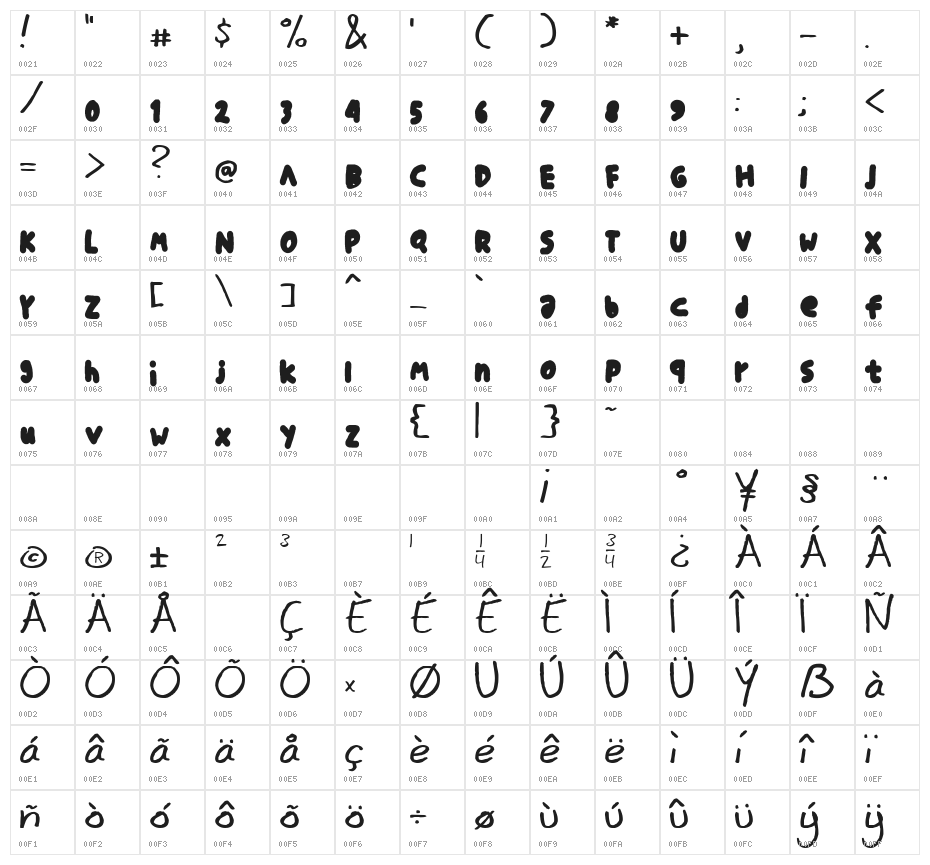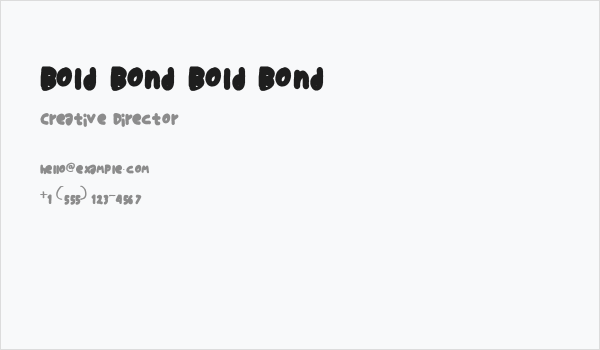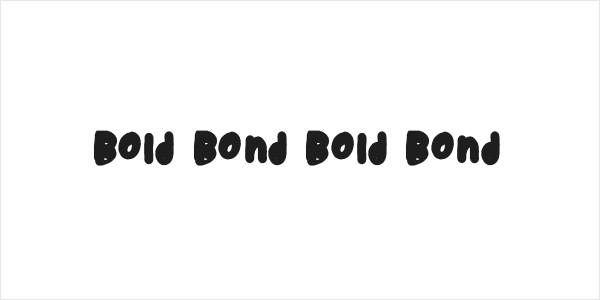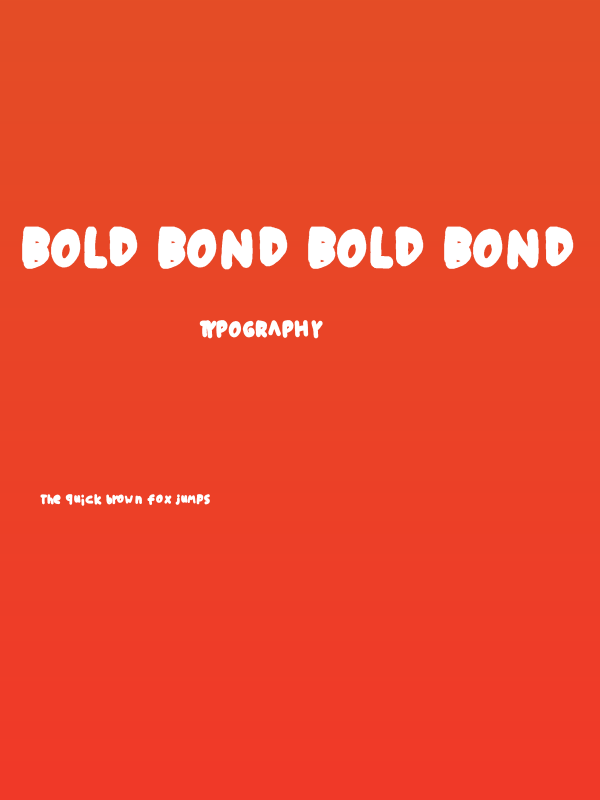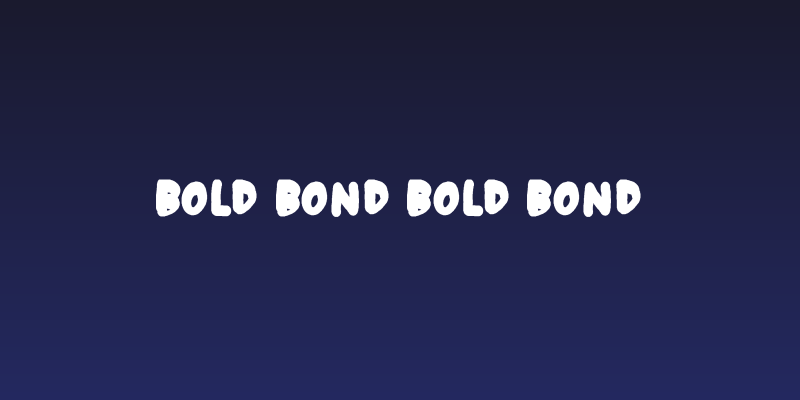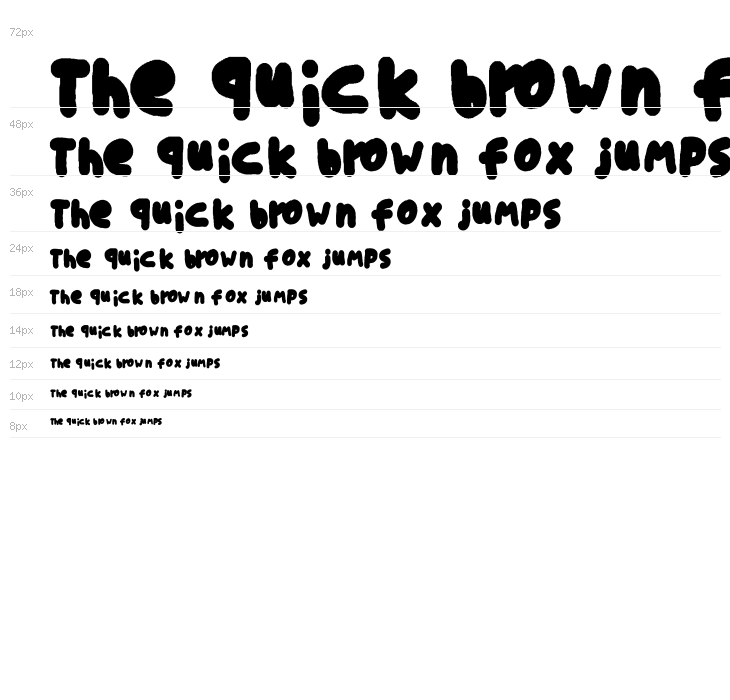
Bold Bond Font
Bold Bond Description
This font features a bold and playful style with rounded, thick strokes that give it a friendly and approachable appearance. The characters are slightly irregular, adding a hand-drawn feel that enhances its charm. The uppercase and lowercase letters maintain a consistent weight, ensuring readability while still conveying a sense of whimsy. The numbers and special characters follow the same design principles, making them cohesive with the alphabet. This font's unique style makes it ideal for projects that require a touch of fun and creativity.
| Overall Style | Playful, Hand-drawn |
| Proposed Projects | Ideal for children's books, playful branding, casual posters, and creative social media graphics. |